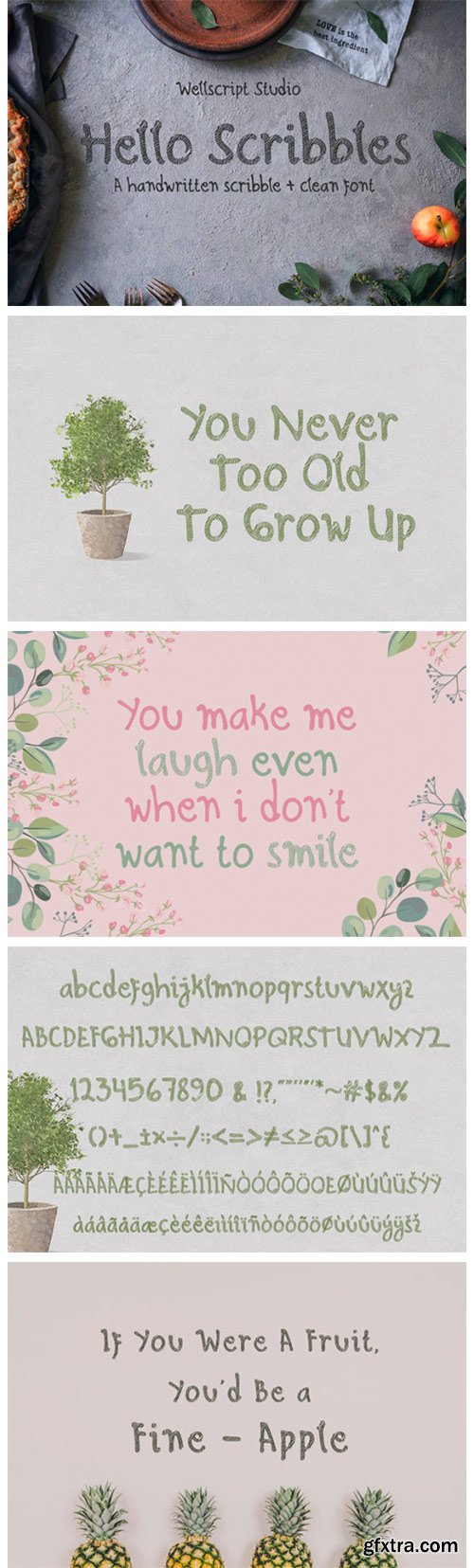
Hello Scribbles Font
Hello Scribbles embodies fun, quirkiness and authenticity. This enchanting display font will turn any creative idea into a true standout. Whether you’re looking for fonts for Instagram or calligraphy scripts for DIY projects, Hello Scribbles will turn any creative idea into a true piece of art!